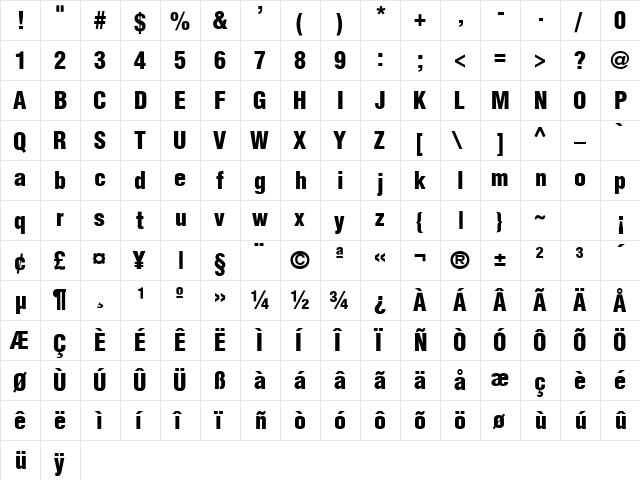
Switzerland Cond Black Plain
Design Context for Switzerland Cond Black Typeface
Switzerland Cond Black takes a measured approach to typography — its balanced proportions and neutral character make it a reliable workhorse for both digital and print work. The condensed width makes it efficient for tight spaces without sacrificing legibility.